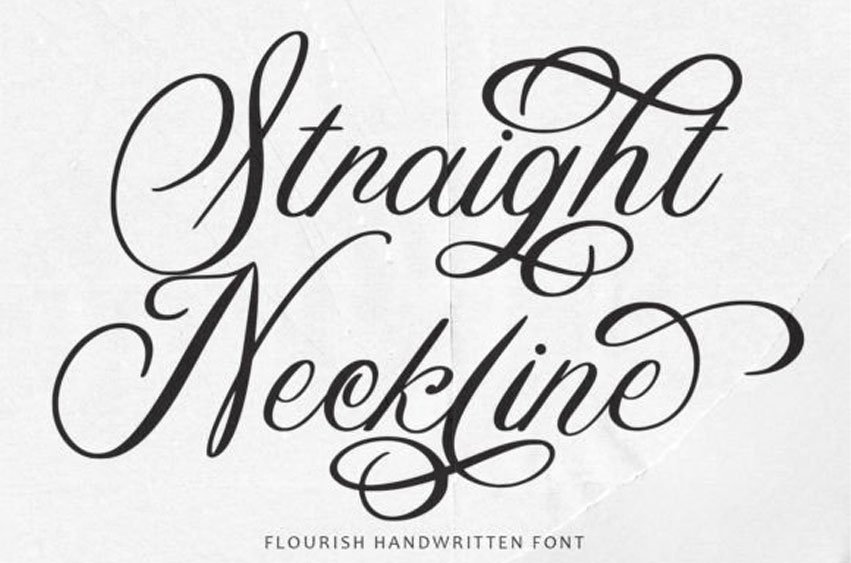
Straight Neckline Font flourish handwritten font combines the elegance of calligraphy with delicate flourishes, creating a charming and sophisticated typeface.
“Straight Neckline” emulates the graceful strokes of calligraphy, with fluid letterforms and tapered lines that evoke a sense of refinement and sophistication. Each character is carefully crafted to maintain a consistent and elegant appearance.